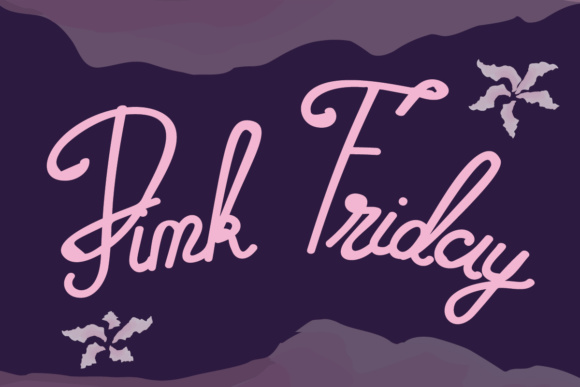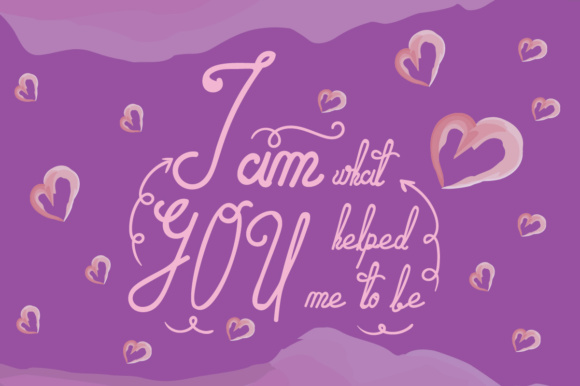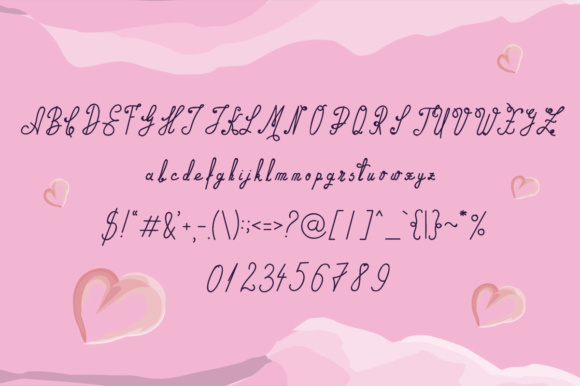
Pink Friday Font
About Pink Friday Font
Pink Friday is a fun & smooth font. With it’s beautiful swashes, Pink Friday can be used for every design that needs a feminine feel.